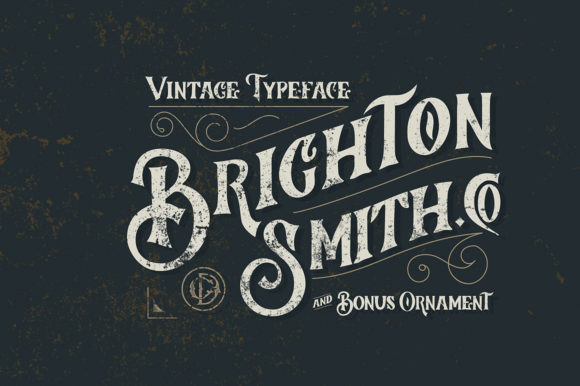
The Designer’s Delight: Unpacking the Brighton Smith Font
I’ll never forget the struggle I faced while working on a vintage-themed project for a client. The brief was simple: create a bold, eye-catching logo that screamed confidence and style. But, as I scrolled through my font library, I found myself stuck. That’s when I stumbled upon the Brighton Smith font, and it was love at first sight! 💕 In this article, I’ll share my experience with this stunning font, its features, and how to make the most of it in your designs.
First Impressions: A Vintage Styled Powerhouse
Brighton Smith is a vintage-styled, daring display font that’s perfect for headlines and logotype projects. It’s strong, confident, and dynamic, with a nostalgic character that can instantly elevate your designs. The font’s unique blend of classic and modern elements makes it a versatile choice for various creative projects.
Honest Review: The Good and the Quirks
- ✨ Unique vintage style with a modern twist
- ✅ Strong and confident appearance
- 💥 Perfect for headlines and logotype projects
- 🎉 Easy to read and understand
While Brighton Smith is an excellent font, it’s not without its quirks. ⚠️ Some users might find the font a bit too bold for certain projects, and it may not be suitable for body text due to its display nature. 🤔 Additionally, the font’s vintage style might not fit every design aesthetic.
Practical Guide: Using Brighton Smith in Your Designs
- Experiment with OpenType features, such as stylistic alternates, to add more character to your text.
- Explore the font’s glyphs and OpenType features to add more depth to your text.
The Designer Inspiration Behind Brighton Smith
Brighton Smith was crafted with the intention of capturing the essence of vintage typography while infusing it with a modern twist. The font’s creator drew inspiration from classic signage and advertising from the early 20th century, aiming to evoke a sense of nostalgia and timelessness. 💡
Q: What type of projects is Brighton Smith best suited for?
A: Brighton Smith is perfect for headlines, logotype projects, and any design that requires a strong, confident, and dynamic appearance.
Q: Can I use Brighton Smith for body text?
A: While Brighton Smith is a beautiful font, it’s primarily designed for display purposes. It may not be the best choice for body text due to its bold nature.